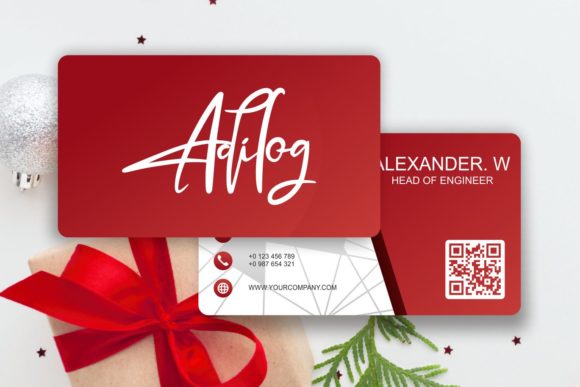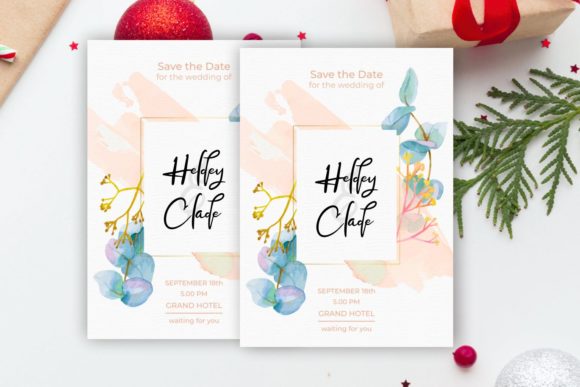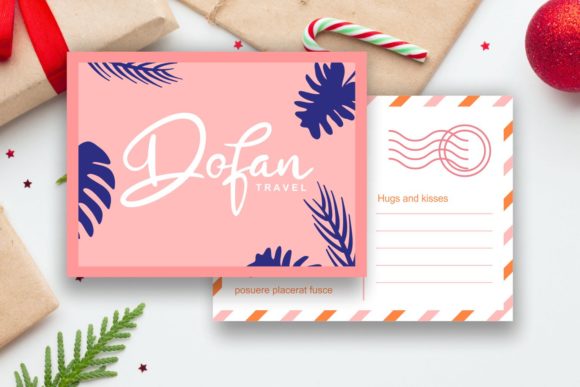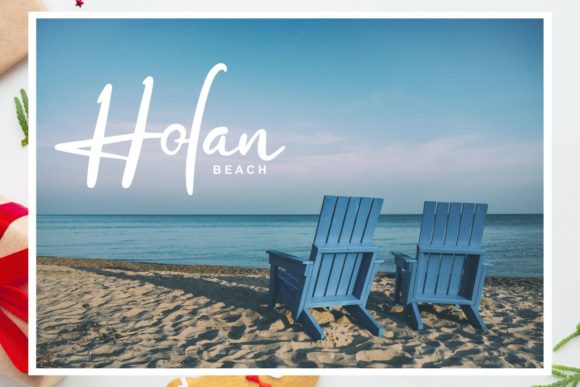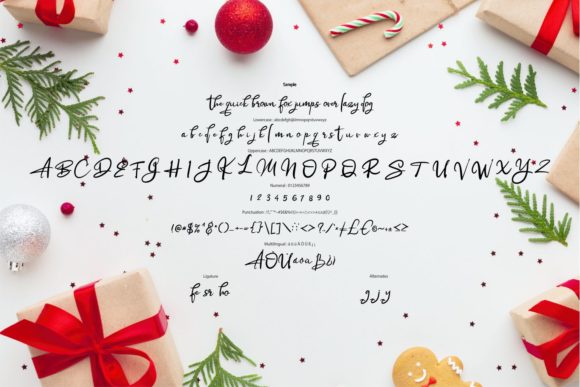
HomeScript FontsAlrogty Font Script Fonts Alrogty Font FacebookXPinterestWhatsApp Alrogty Font Poster 2 Alrogty Font Poster 3 Alrogty Font Poster 4 Alrogty Font Poster 5 Alrogty Font Poster 6 About Alrogty Font Alrogty features beautiful alternates and ligatures, making this an incredibly beautiful script font. DOWNLOAD ON CREATIVE FABRICAThis font is sold and delivered by Creative Fabrica. Font Canyon may earn a commission if you buy through this link. People also explored Chayla Font Calosta Font Black Masteng Font Really Wonder Font Huttan Cerote Font Hunny Straw Font Lay Up Font Word Signature Font Little Things Duo 303 0 TagsAlrogty Font Previous articleRosega FontNext articleDeglas Font LEAVE A REPLY Cancel reply Comment: Please enter your comment! Name:* Please enter your name here Email:* You have entered an incorrect email address! Please enter your email address here Website: Save my name, email, and website in this browser for the next time I comment. Personal Use Free Mallvirra Personal Use Free Read more about this font Rembank Personal Use Free Read more about this font Adriator Personal Use Free Read more about this font Bosk Personal Use Free Read more about this font BLOG To increase your work productivity, choose the most readable fonts. In today's fast-paced work environment, where digital communication and information consumption are integral to our daily routines, the choice of fonts can significantly impact... 5 Fonts That Will Dominate Design Trends in 2026 Modern Sans-Serif Fonts That Brands Love in 2025 Where to Buy American Fonts Online in 2024